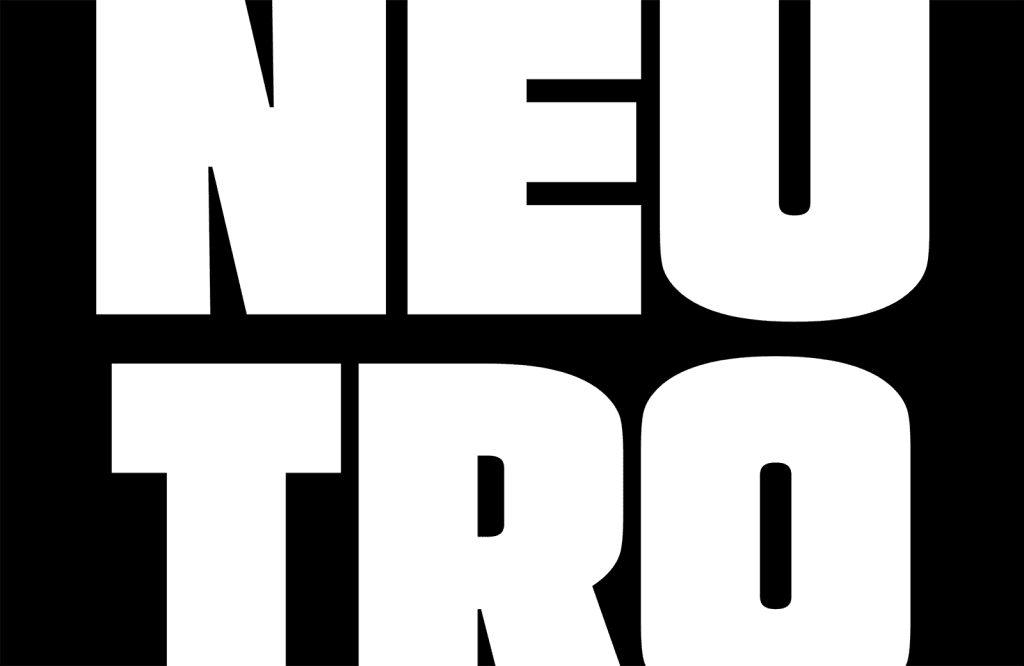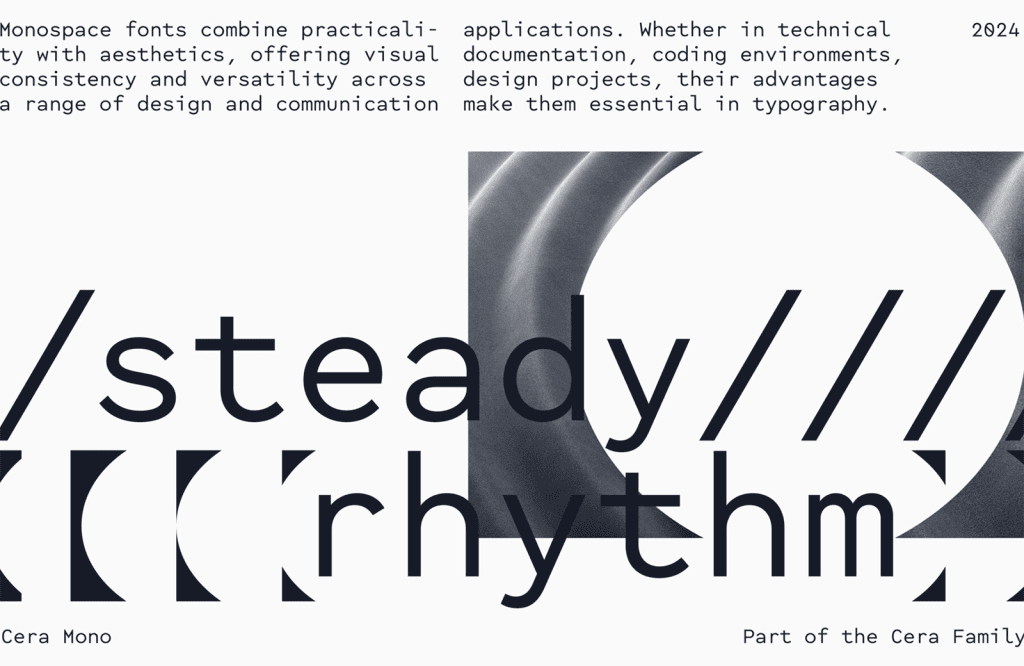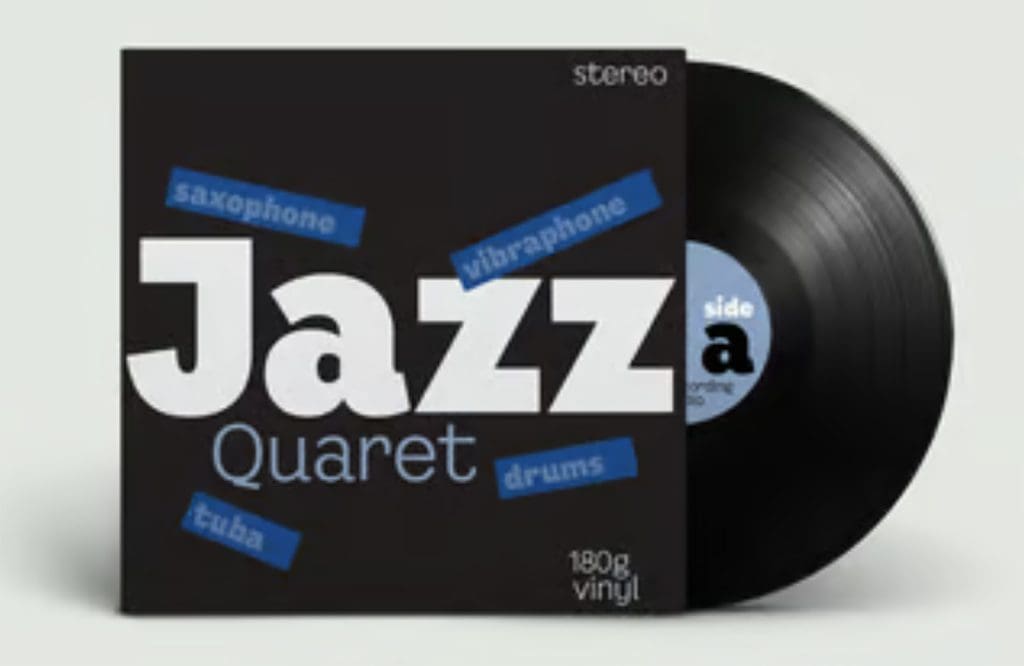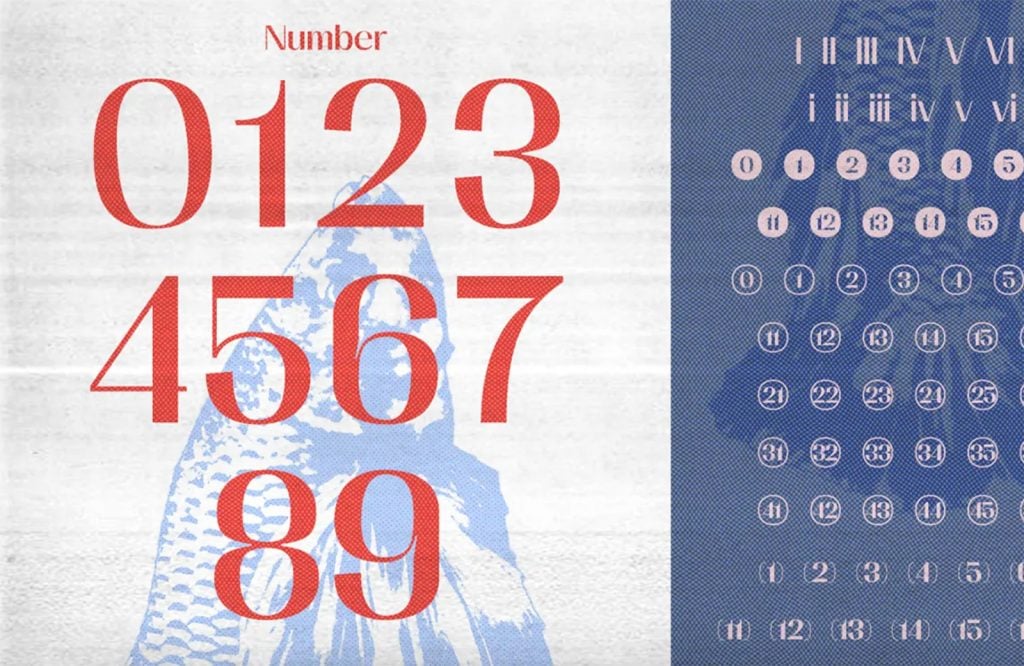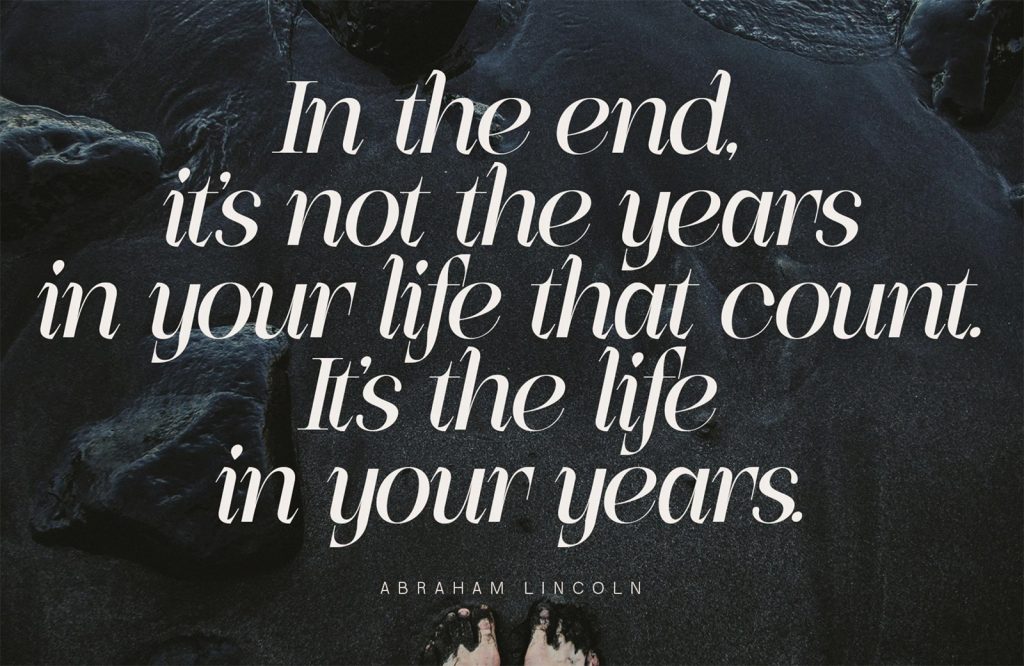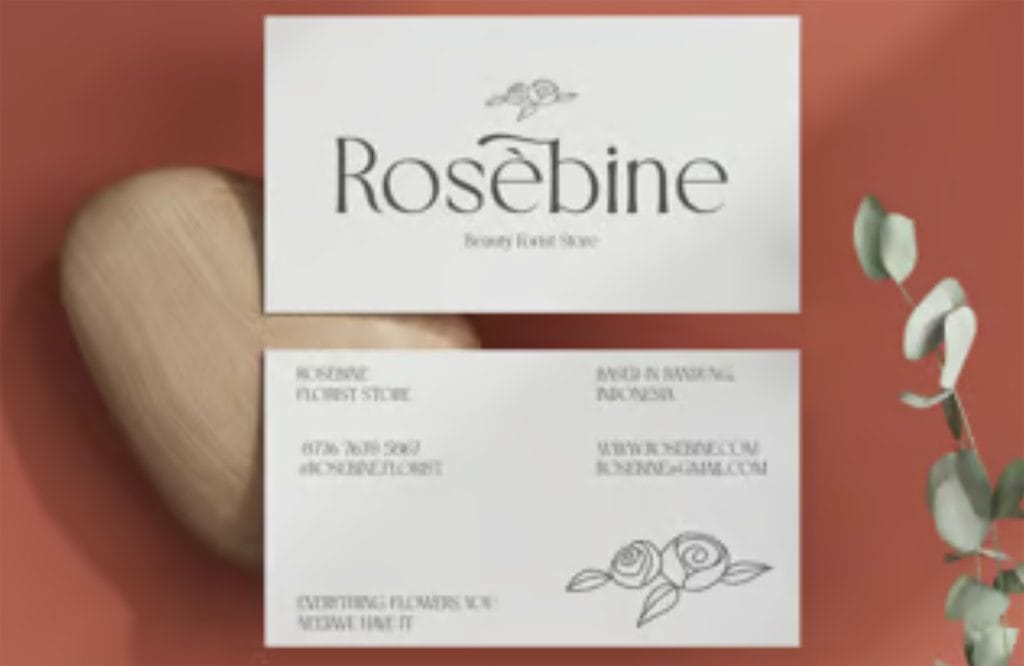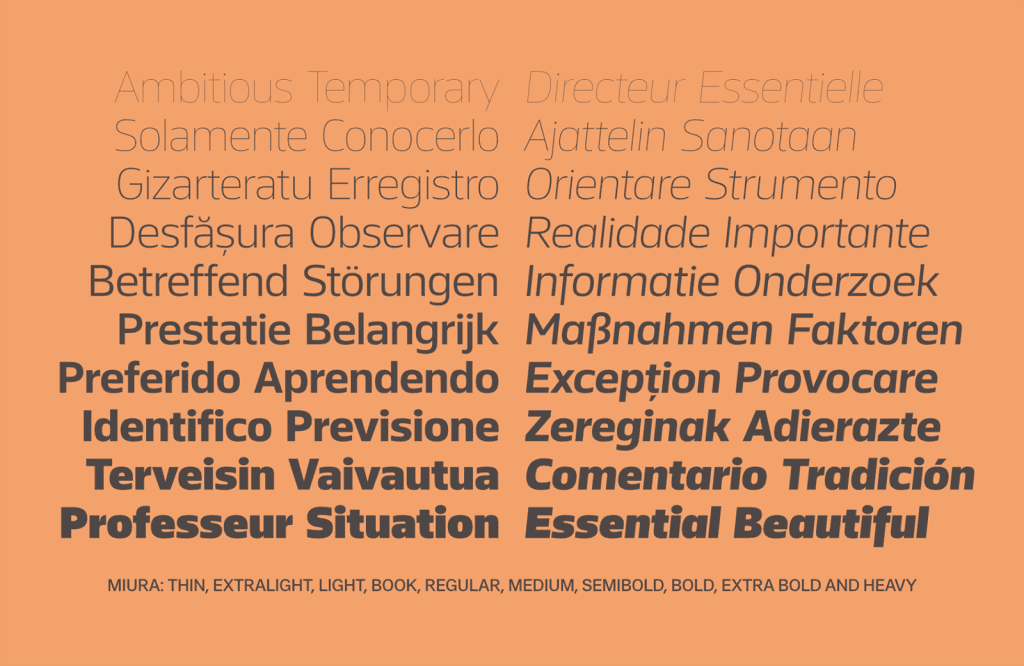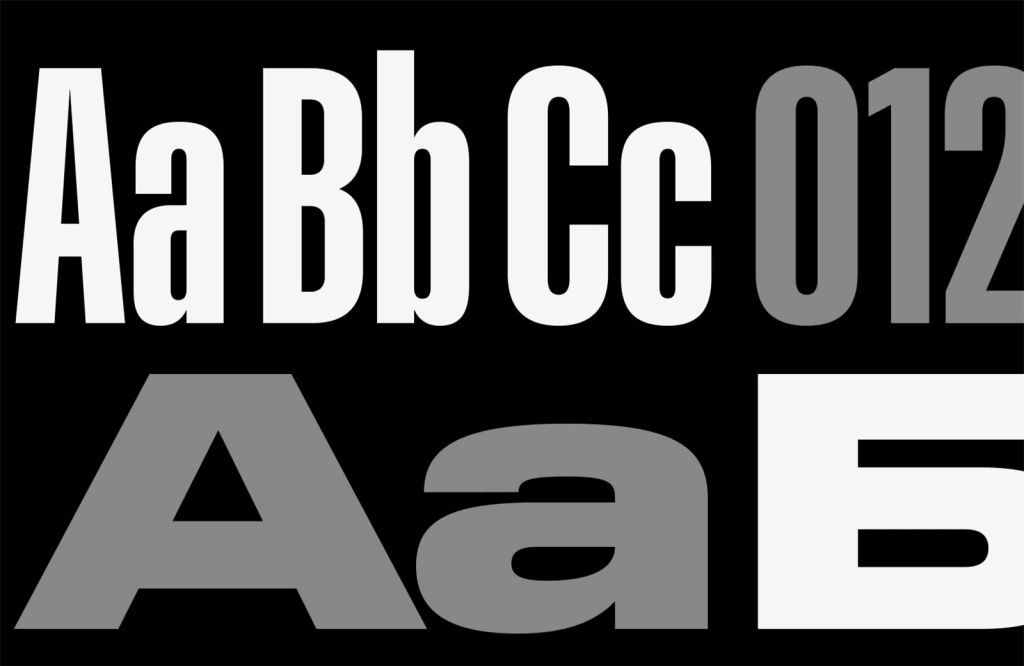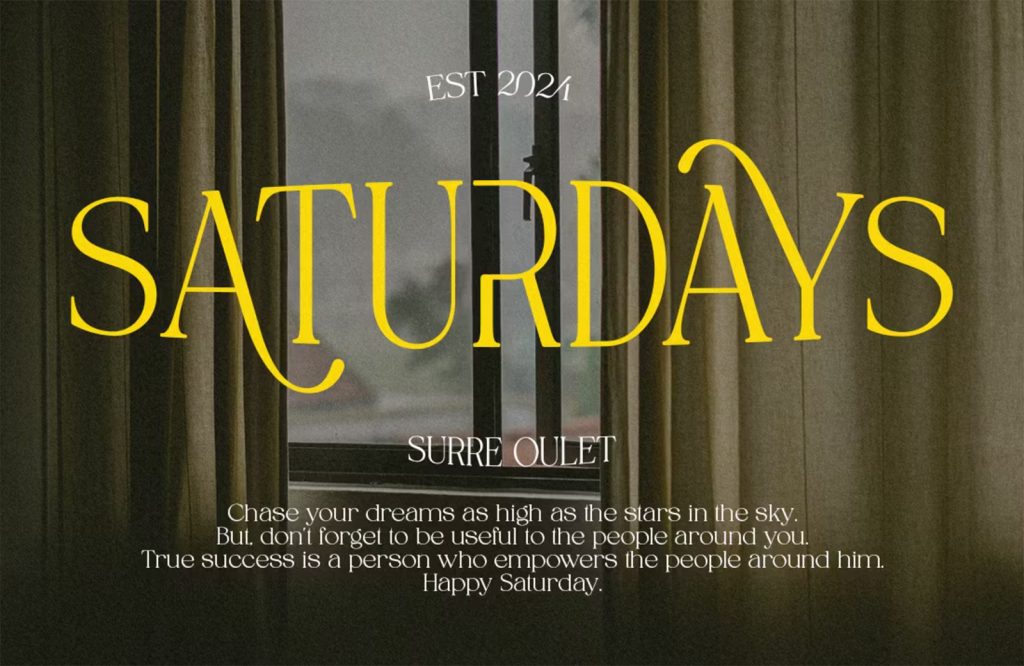
Welcome to our roundup of the best new fonts we’ve found online in the last month. This month, there are notably fewer revivals and serifs and a lot more chunky sans serifs than usual. Enjoy!
Super Massive
Super Massive is an all-caps display face that swaps subtlety for solidity and visual weight. It’s available in three styles, i, ii, and iii, which start bold and get progressively bolder.
Cera Mono
Cera Mono is part of the Cera collection of fonts. It’s a companion to Cera Pro, and intended to add UI design to the workhorse family’s capabilities. There’s a variable font available.
Mezzogiorno
Mezzogiorno is a warm, friendly typeface with a spring in its step. The large counters, rhythm, and generous x-height make it extremely legible at small sizes.
Mansel
Mansel is a distinctive high-contrast sans serif, which gives it a ribbon-like quality when used for running text. It comes in 7 different weights, from Light to Heavy, and accompanying italics.
Finality
Finality is a modern serif designed for editorial work. Thanks to its high contrast and relatively large x-height, it’s highly legible. The real star of the show is the accompanying italic that adds plenty of personality.
Paradisian Serif
Paradisian Serif is an all-caps serif intended for branding projects and headlines. There are some charming ligatures and alternatives included that present plenty of options for playing with word shapes.
Hustralge
Hustralge is a display serif with subtle serifs tapering from its stems. The resulting flared verticals give the typeface a hand-drawn quality that makes it ideal for branding projects seeking to emphasize the notion of craft.
Miura
Miura is a workhorse of a font family with a huge range of widths and weights with accompanying italics. The squarish glyphs are rounded into a friendly but reserved shape making it ideal for corporate branding.
Rooftop
Rooftop is a sans serif inspired by early 20th-century American grotesks. Its character is dominated by squarish curves that introduce a modern aesthetic to word shapes. It’s available in a variety of weights and widths, plus italics.
Spadore
Spadore is an elegant typeface that oozes luxury. It would be perfect for the logo of a business specializing in high-end consumer products or services. There are alternate characters and ligatures galore.
Tiny Grotesk
Tiny Grotesk is a superfamily comprised of three different widths: Regular, Narrow, and Wide. It’s a great workhorse of a font family that offers designers a range of fine typography options.
Segovia Normal
Segovia Normal is a sans serif designed for display sizes. It’s a sober typeface that works well for headings when balancing a more ebullient body font.
Praya
Praya is a chunky, high-contrast serif designed for display use. It features alternative characters and ligatures, allowing you to create beautifully flowing text.
Scoop
Scoop is a sans serif originally designed for Swedish newspaper Dagens Nyheter; it has just been made available as a commercial typeface and is ideal for corporate branding projects.
Turquoise Sans
Turquoise Sans is on the edge of serif status, with flared strokes adding a calligraphic, hand-drawn quality to the typeface. There are Regular and Inline styles available.